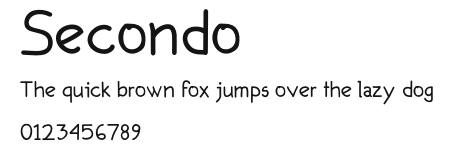
Secondo Preview
• Font Name: Secondo
• Full Font Name: Secondo
• PostScript Name: Secondo
About Secondo.otf
Secondo.otf is a modern, elegant sans-serif font designed for ultimate readability and visual harmony. Perfect for branding, headlines, web design, and print materials.